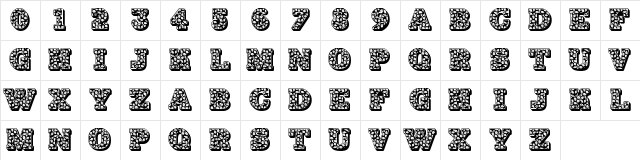
JFHollyNites Regular Free Font
JFHollyNites Regular
Designer: Jessica Slater
Design Context for JFHollyNites
JFHollyNites is a composed and adaptable typeface that performs quietly and consistently across a wide range of design contexts.